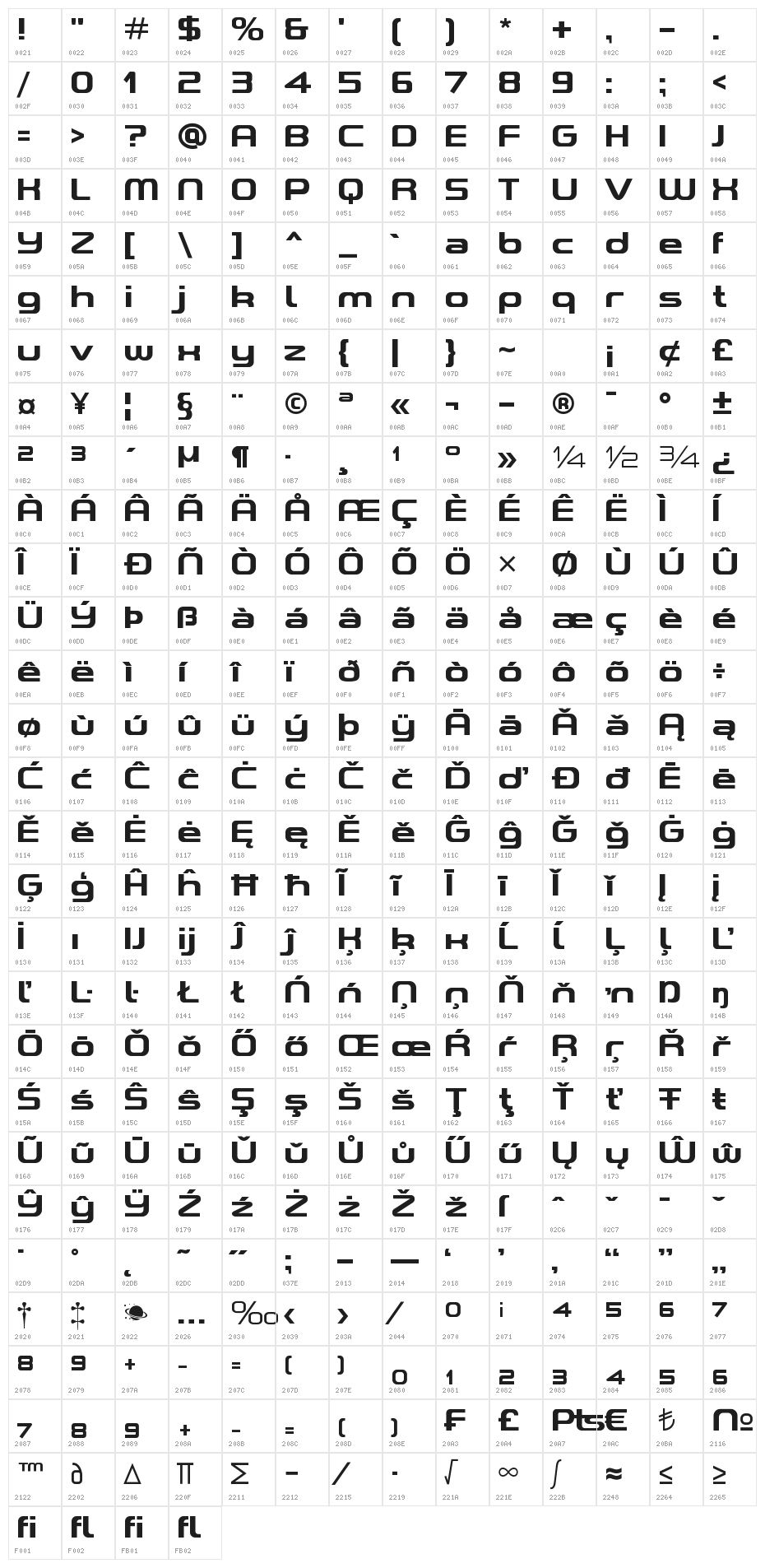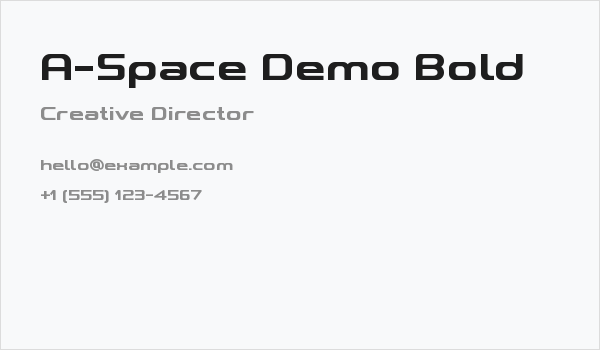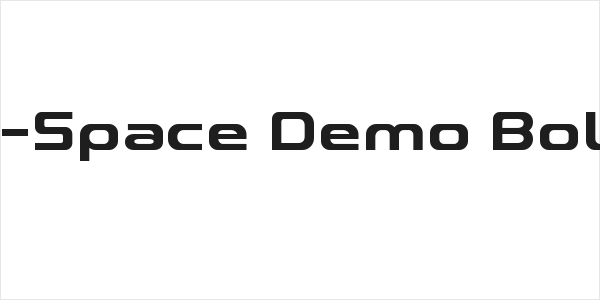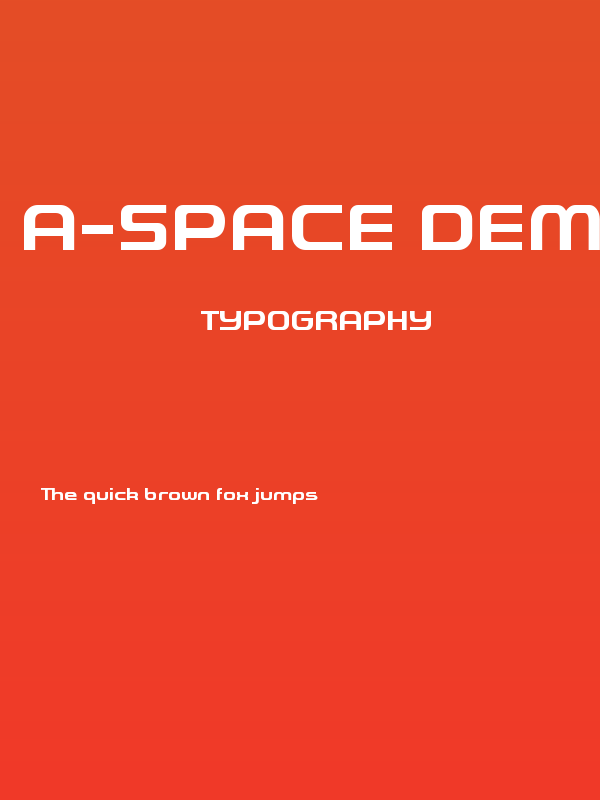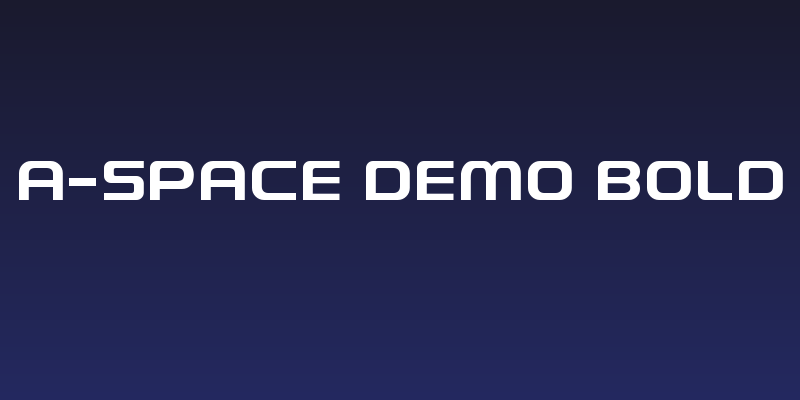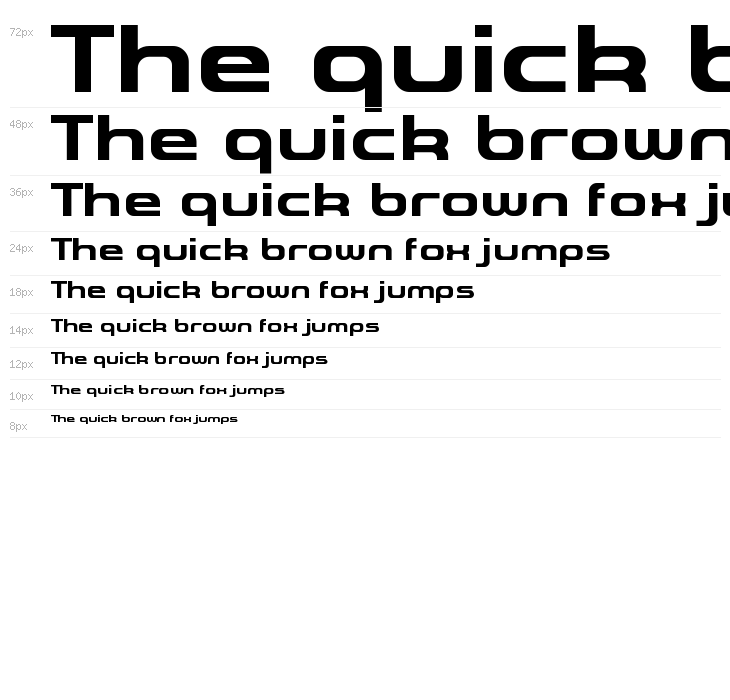
A-Space Demo Bold Font
A-Space Demo Bold Description
This font features a futuristic and geometric design, characterized by its bold and rounded letterforms. The uppercase and lowercase letters maintain a consistent width, giving a uniform appearance across all characters. The numerals and special characters follow the same design principles, ensuring a cohesive look. The font's clean lines and modern aesthetic make it suitable for contemporary design projects. Its bold weight and distinct style are ideal for making a strong visual impact.